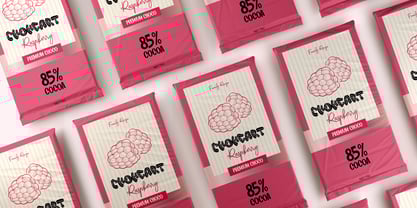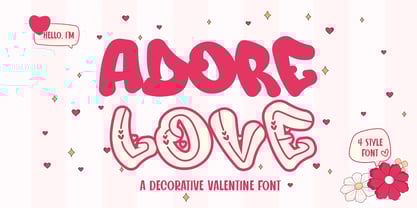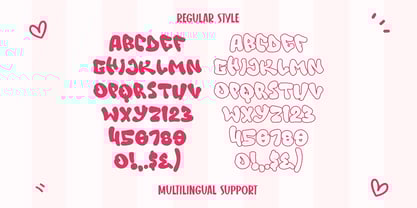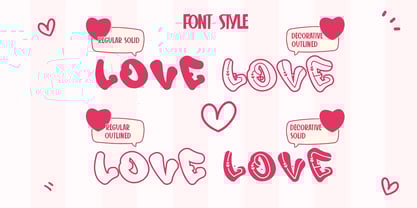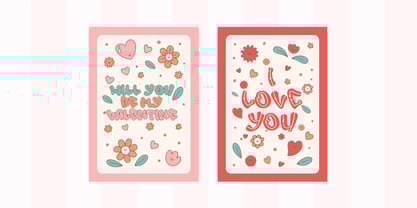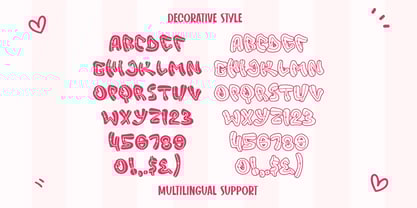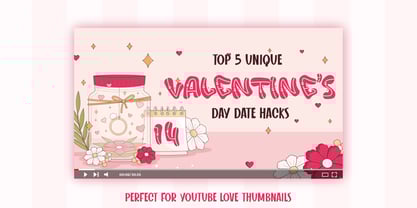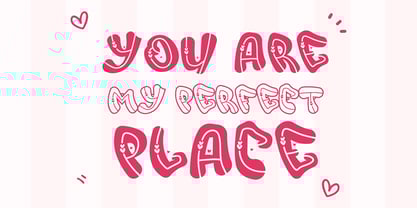
Adore Love Deco Outline
by Sipanji21
The Adore Love Deco Outline Font Family was designed by Sipanji and published by Sipanji21. Adore Love Deco Outline contains 4 styles and family package options. More about this family
Adore Love is a delightful decorative font designed to capture the spirit of love and romance. Featuring four versatile styles are solid and outline without love decorations, and solid and outline with charming love-themed accents. This font is perfect for spreading warmth and affection. Its chubby, rounded characters exude a playful and adorable personality, making it an excellent choice for a variety of creative projects. Whether you're designing Valentine's Day cards, wedding invitations, romantic quotes, heartwarming social media posts, or any love-themed artwork, Adore Love brings a sweet and cheerful vibe to your designs. Its versatile styles allow you to mix and match elements for unique and eye-catching compositions, adding just the right amount of charm and elegance. Let Adore Love be the highlight of your next project and infuse your work with love and creativity!